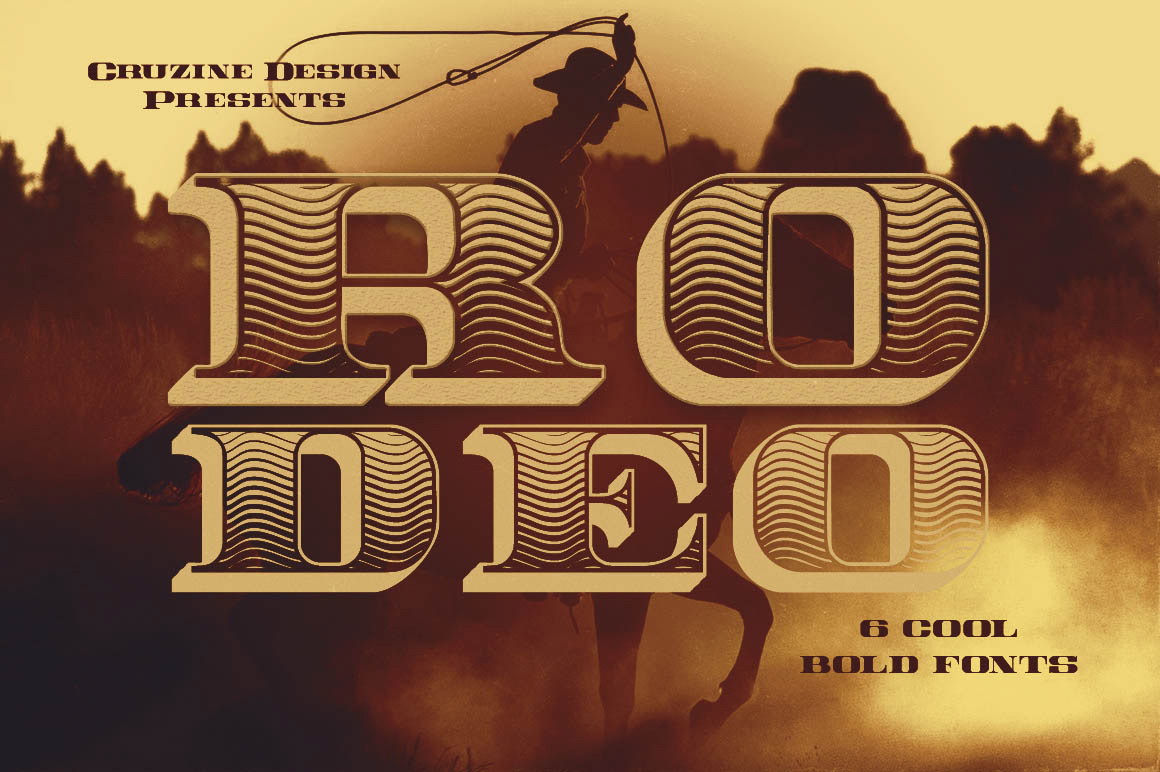
Rodeo Typeface
Unique & vintage style bold display font for your new projects. Great for retro/vintage projects!
- 6 font files (otf & ttf) - regular & grunge, shadow & shadow grunge, shadow wave & shadow wave grunge